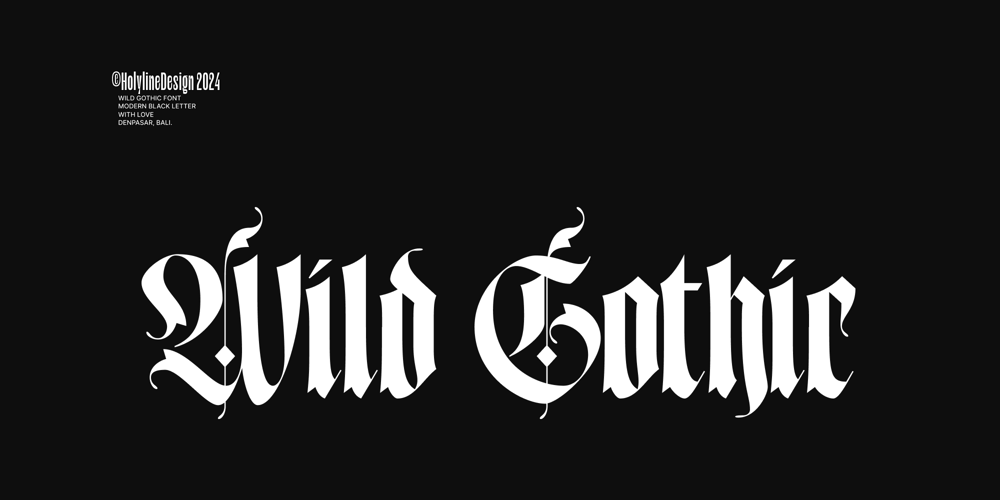
Wild Gothic
Wild Gothic font
Wild Gothic Font Family was designed by Bagus Beratha Wijaya and published by holyline design. Wild Gothic contains 1 styles and family package options. Wild Gothic is a bold Blackletter font with strong Old English roots, reimagined through the lens of brutalist design. Merging the traditional elegance of calligraphy with the stark, raw aesthetics of brutalism, this font brings a unique fusion of history and modernity.Inspired by the sharp, precise strokes of flat-pen calligraphy, each character is crafted with rigid, angular forms that evoke the structured, geometric feel of brutalism while maintaining the intricate detail and ornate beauty of Old English typography. The result is a typeface that’s both commanding and elegant, perfect for bold branding, editorial pieces, and statement-making designs.Ideal for those who want to combine the weight of tradition with a contemporary edge, Wild Gothic adds a touch of grandeur and power to any project